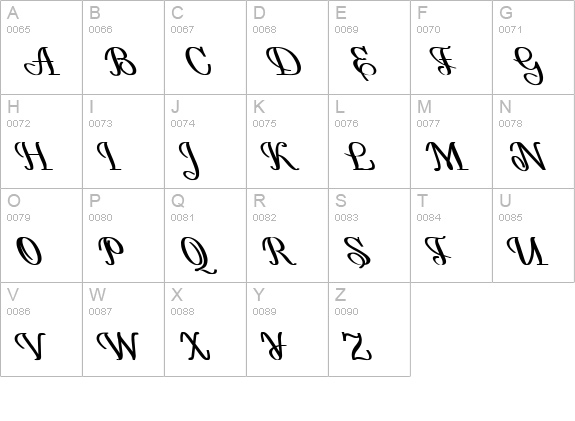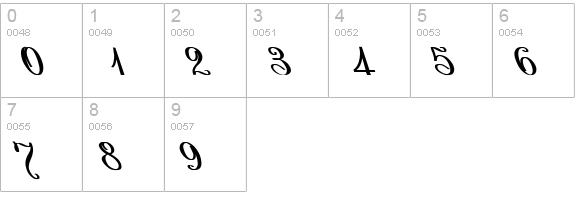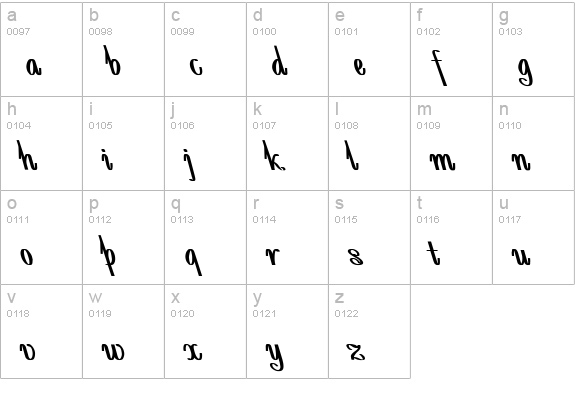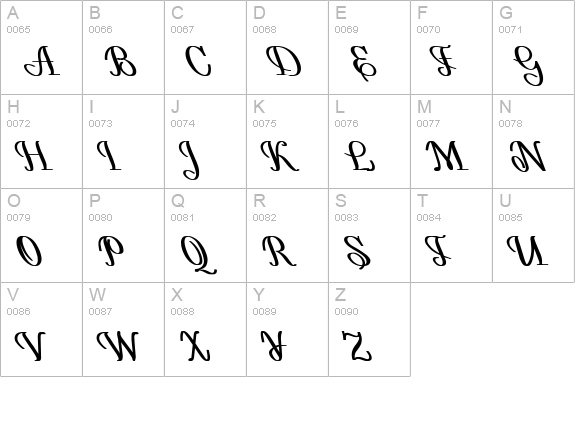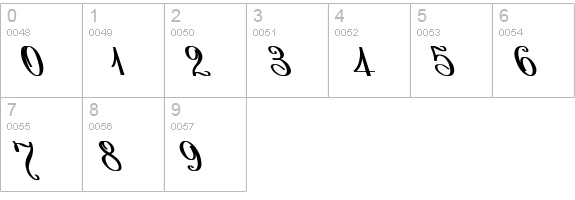
AntiDecor Bold Italic Font Details
AntiDecor Bold Italic is a strong, high-contrast, italic variant in the AntiDecor typeface family \xE2\x80\x94 well suited to headlines, attention-grabbing titles, and strong calls-to-action.
AntiDecor Bold Italic font is a striking and modern typeface that exudes confidence and sophistication. Its bold strokes and slanted italics create a dynamic and impactful visual presence, making it perfect for headlines, titles, and branding materials. The unique design of AntiDecor Bold Italic font adds a touch of edginess and originality to any project, setting it apart from more traditional typefaces. Best of all, AntiDecor Bold Italic font is available for free download at FontsMarket.com. This means you can easily access this stylish and versatile font for all your design needs without any cost. Whether you're working on a graphic design project, creating promotional materials, or designing a website, AntiDecor Bold Italic font is sure to make a bold statement and elevate your work to the next level. Download it today and see the impact it can have on your designs!